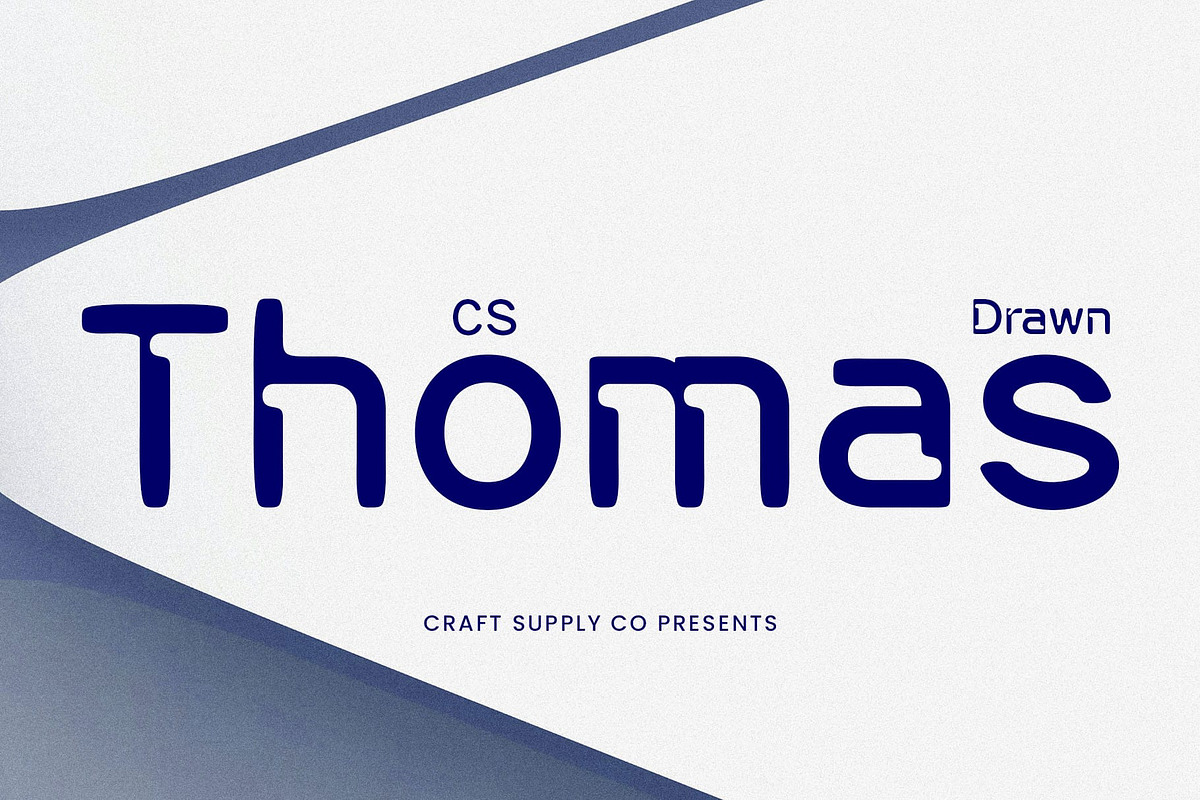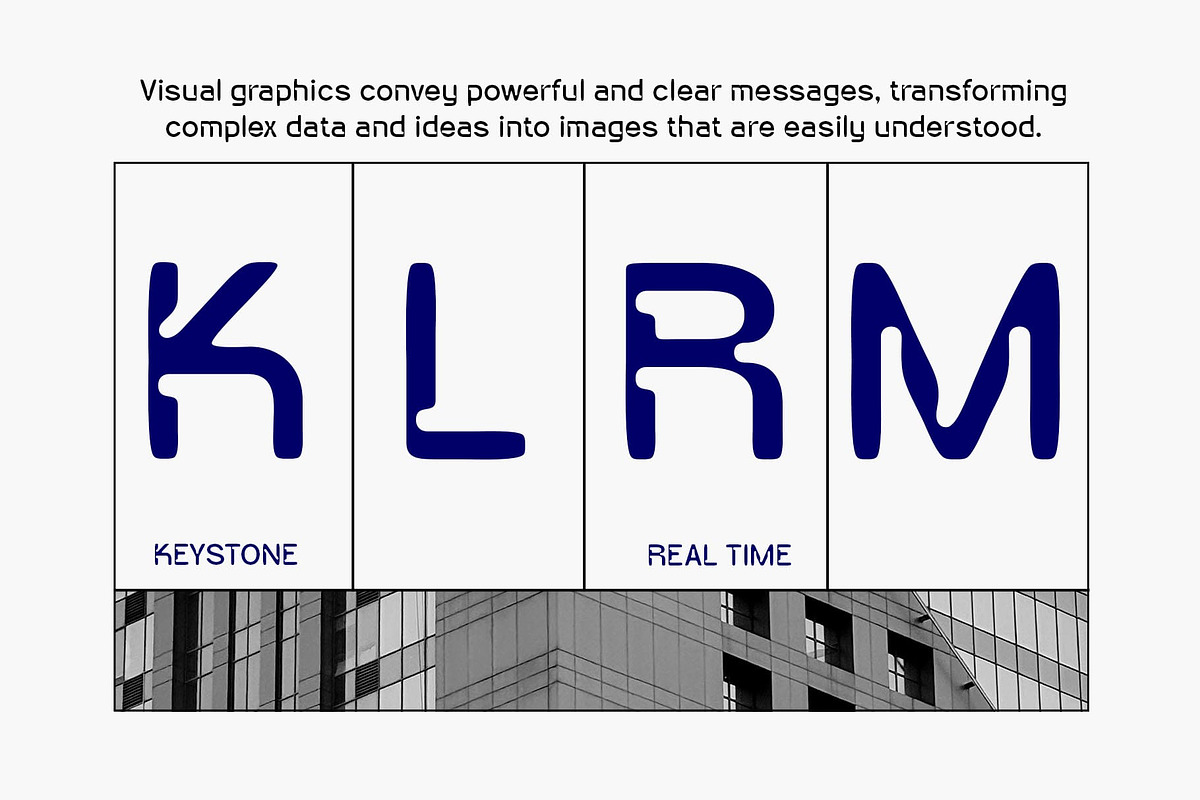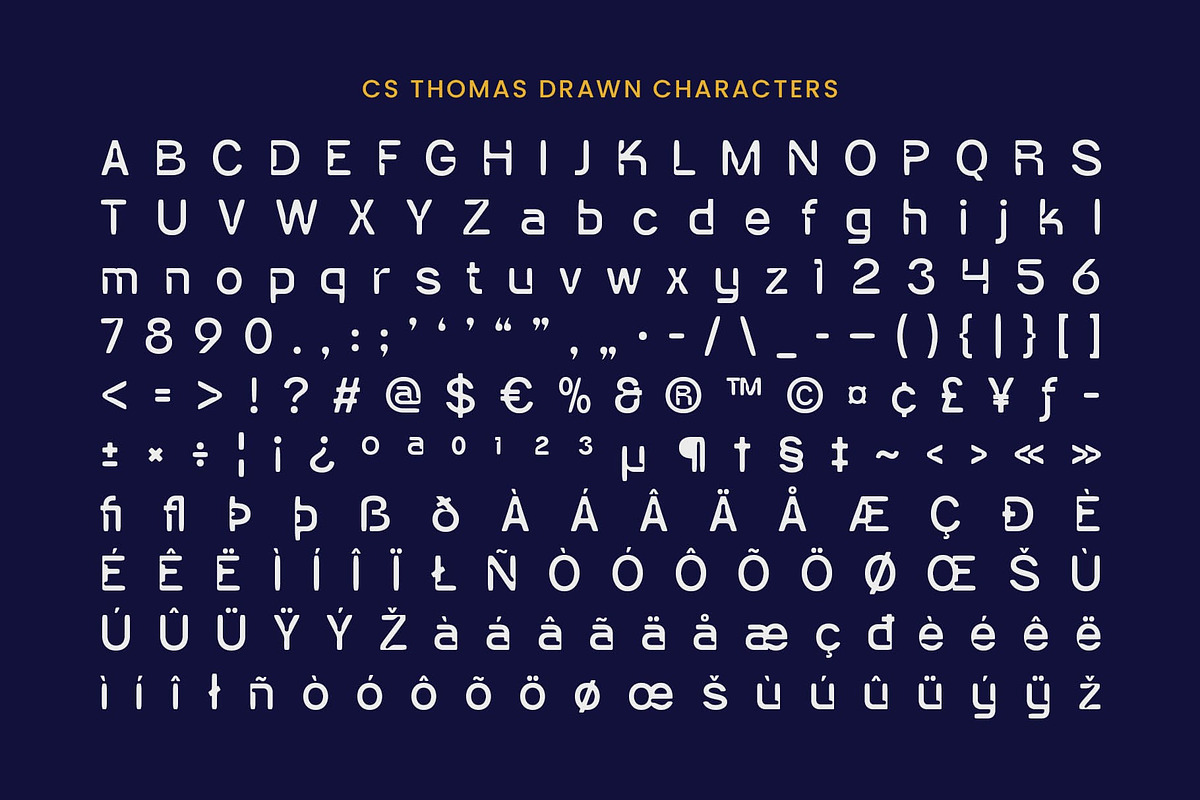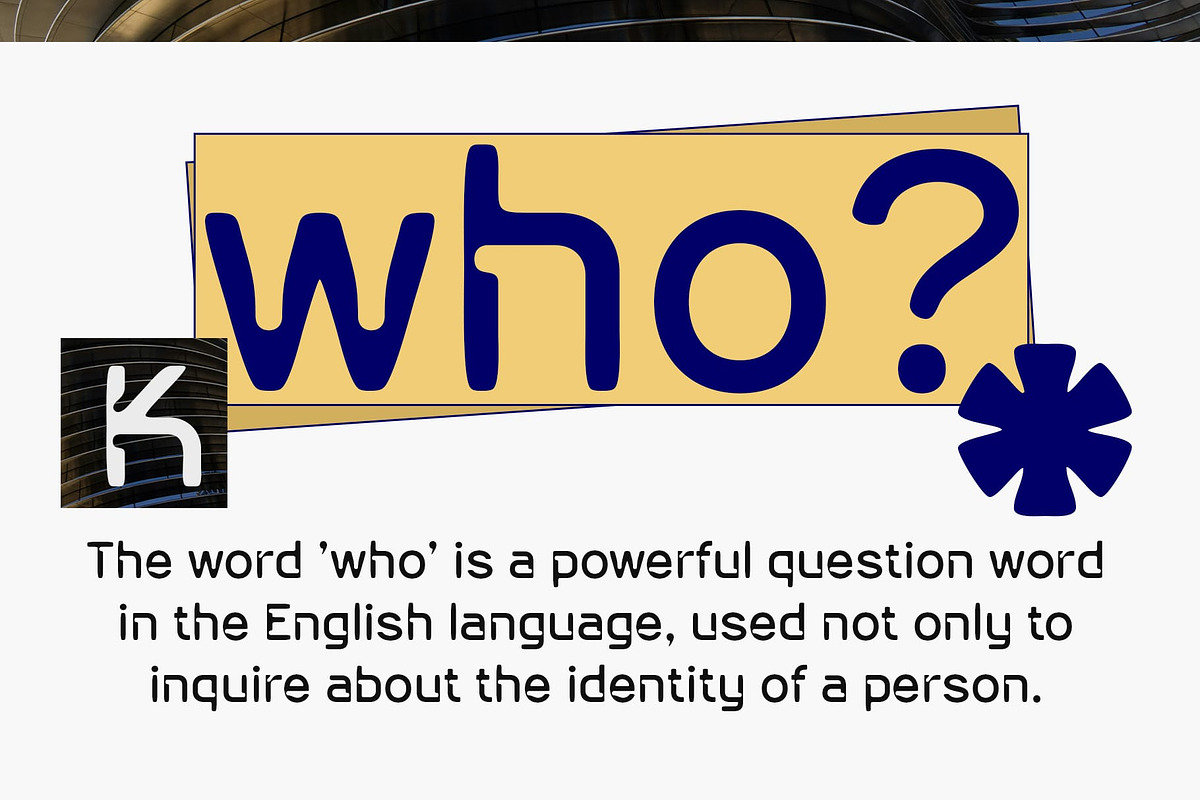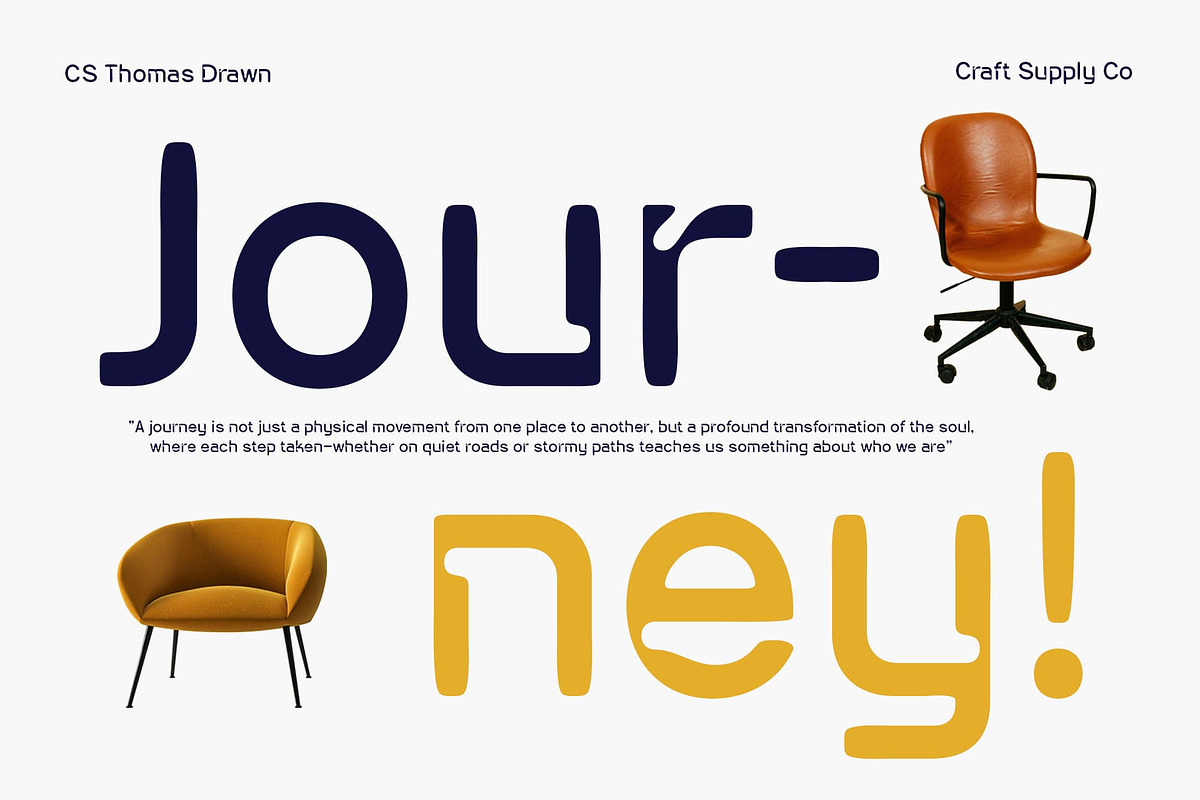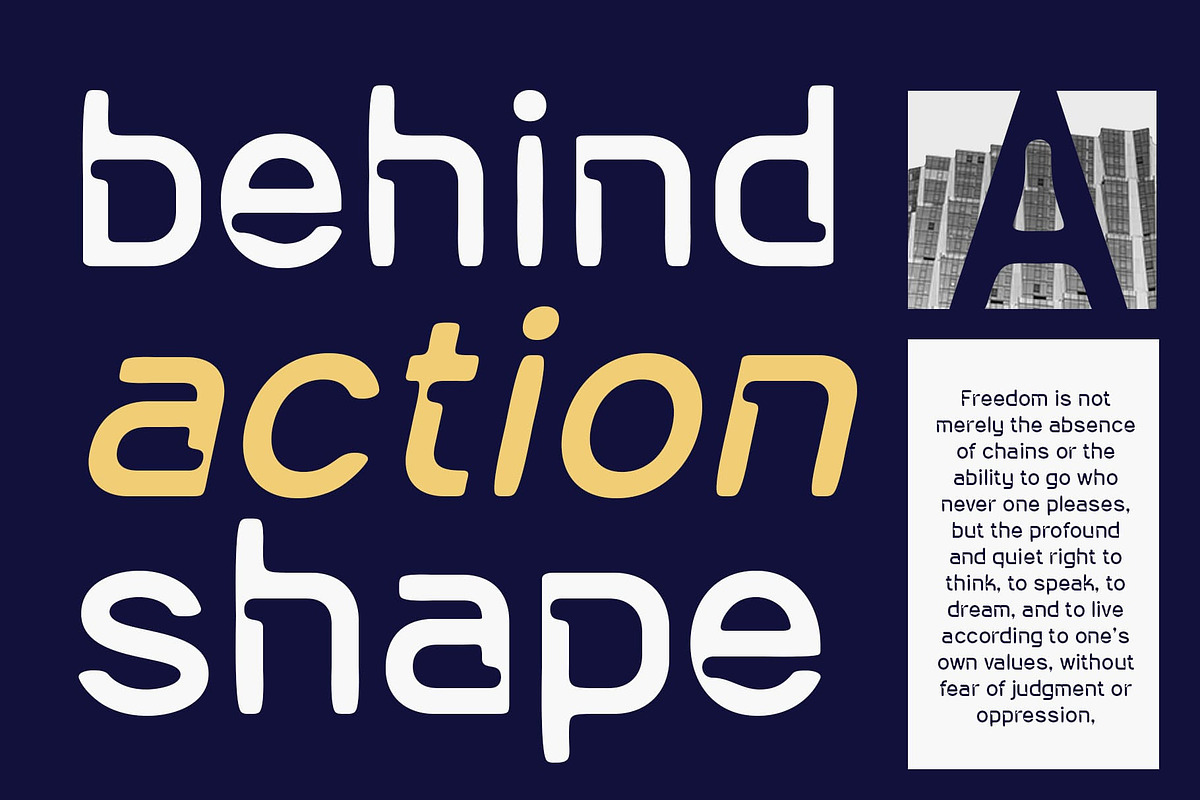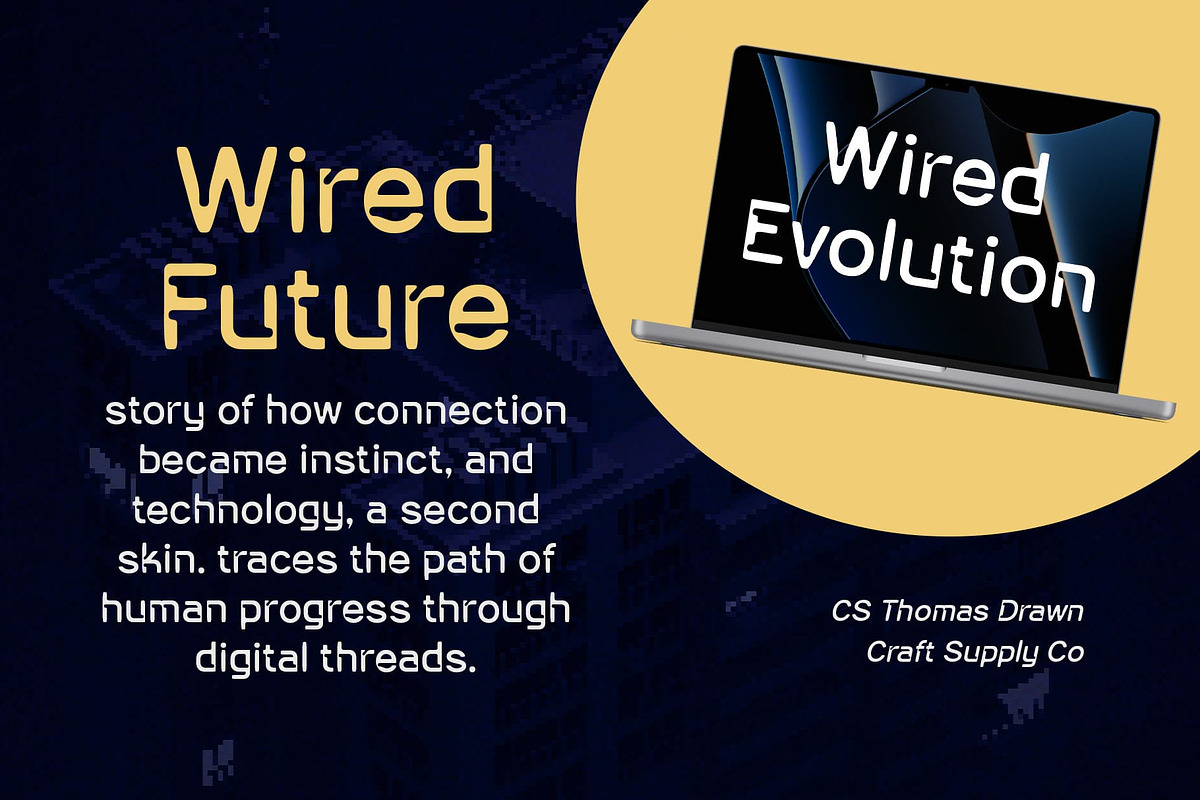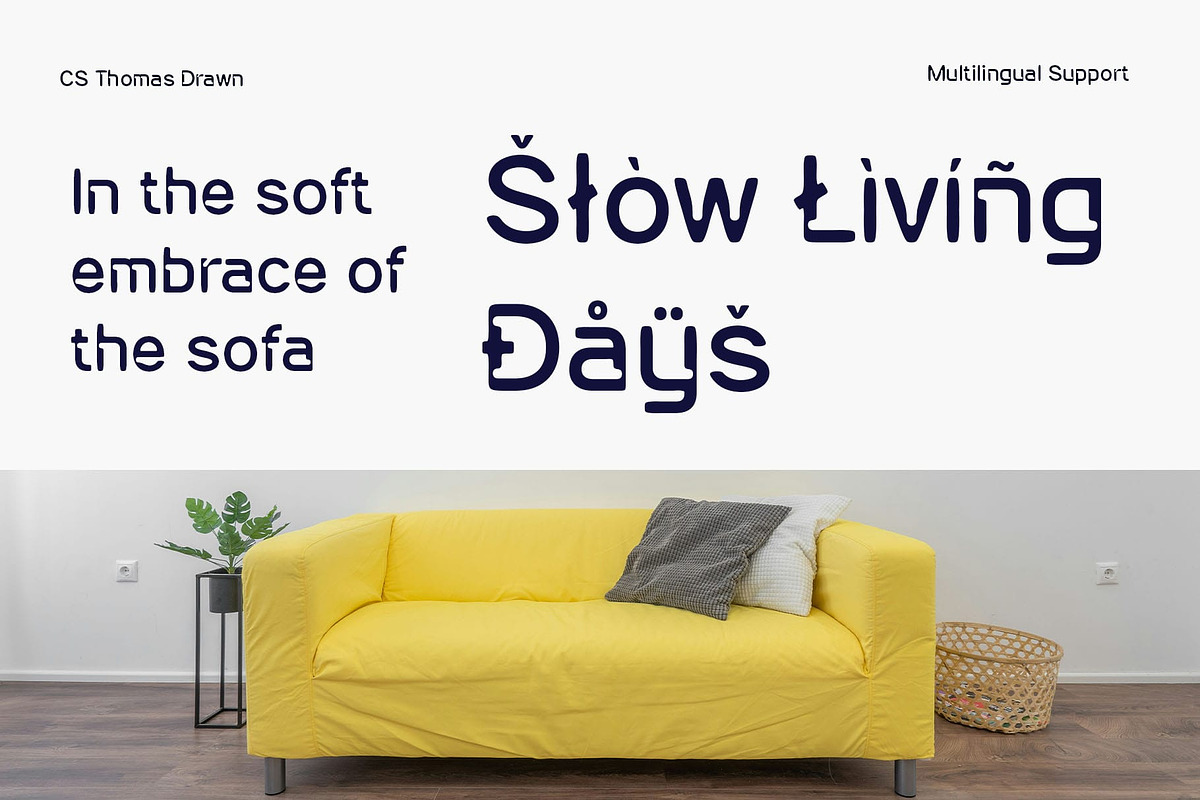
CS Thomas Drawn
CS Thomas Drawn – Where Technical Precision Meets Bold Creativity
Modern Sans-Serif with Inktrap Details This is a modern sans-serif font that stands out through its distinctive inktrap design. The clean, bold letterforms are carefully crafted with intricate inktrap cuts, adding both technical sophistication and visual interest. This blend of precision and character gives the font a strong contemporary feel, ideal for cutting-edge designs.
Subtle 3D Effect for Added Depth Enhanced with a subtle 3D effect, this modern inktrap font brings an extra layer of dimension to your work. The three-dimensional touch makes the characters more dynamic and engaging, ensuring your designs capture attention without overwhelming the overall aesthetic.
Futuristic and Readable The inktrap elements not only add a futuristic technical edge but also improve readability, making the font highly functional for both display and text purposes. It strikes a perfect balance between modern style and usability, offering clarity while maintaining a bold presence.
Ideal for Innovative and Impactful Designs Perfect for branding, posters, editorial layouts, digital interfaces, and technology-driven projects, this inktrap font infuses every design with a sense of innovation and energy. Its bold, clean lines, technical details, and dimensional flair.